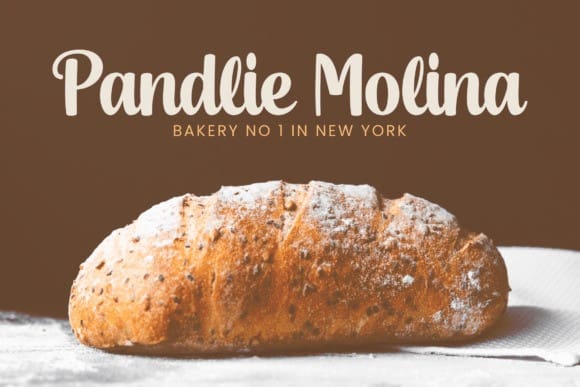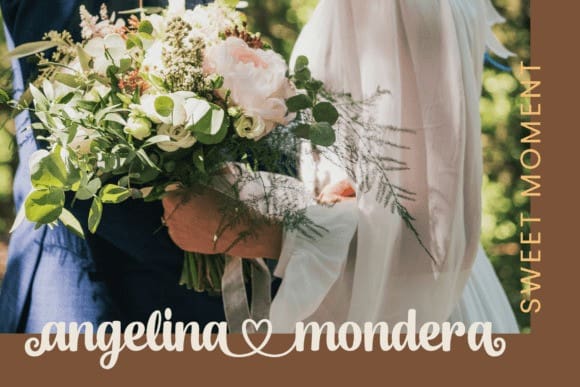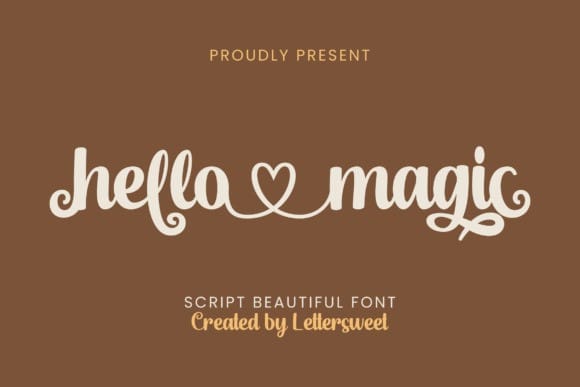
Hello Magic Font
Hello Magic Font, an exquisitely scripted font harboring a wealth of alternative styles, creating an endless panorama of design possibilities. This unique font stands out with its PUA encoding, ensuring easy access to all glyphs and swashes, making design an effortless endeavor. Adorn your work with this stunning typeface and elevate your designs into a realm of enchanting allure. Let Hello Magic transfigure your ordinary into extraordinary. Of course, always design with joy!